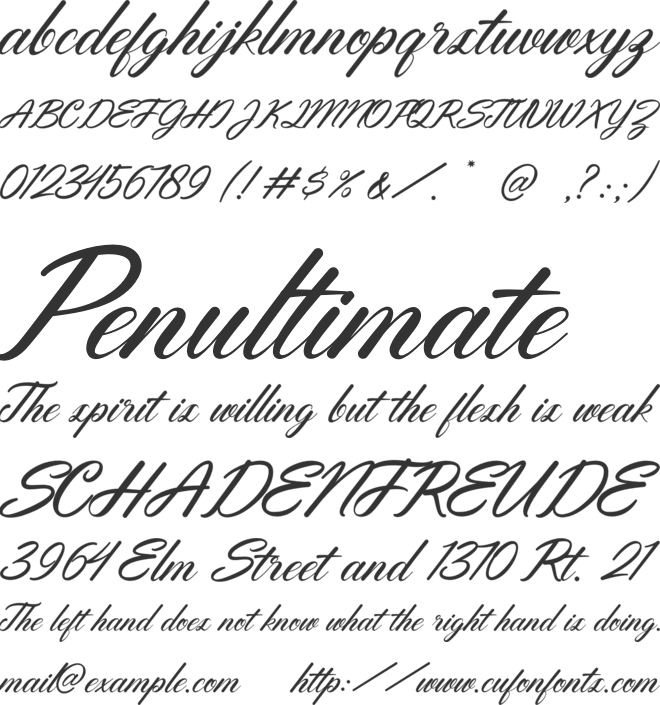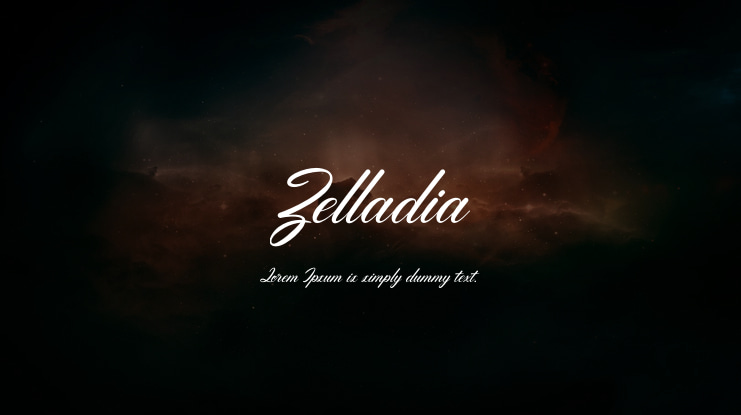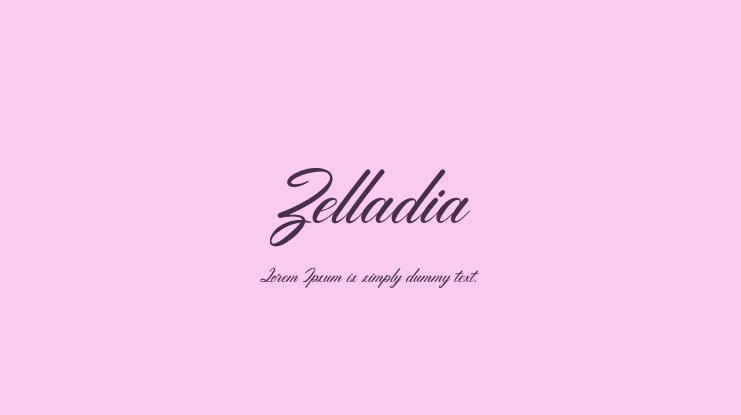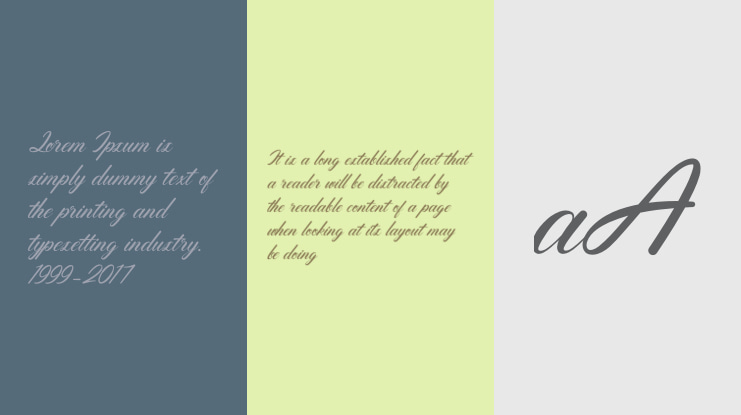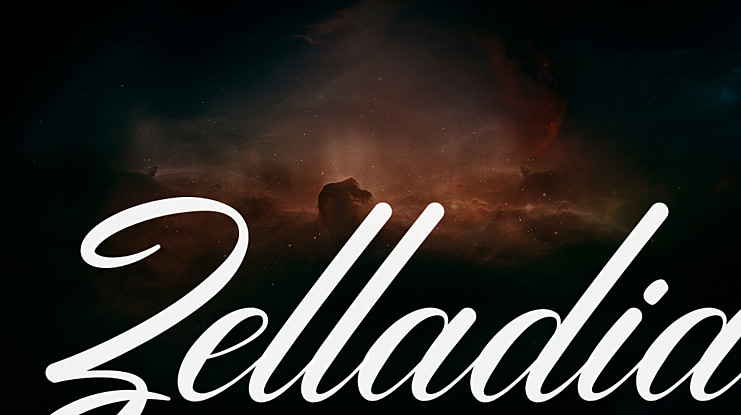
Zelladia Font
Zelladia is a well-balanced and refined script font. It has a classy, elegant and modern look that can be used for logos, branding, invitations, stationery, wedding designs, social media posts, and much more!